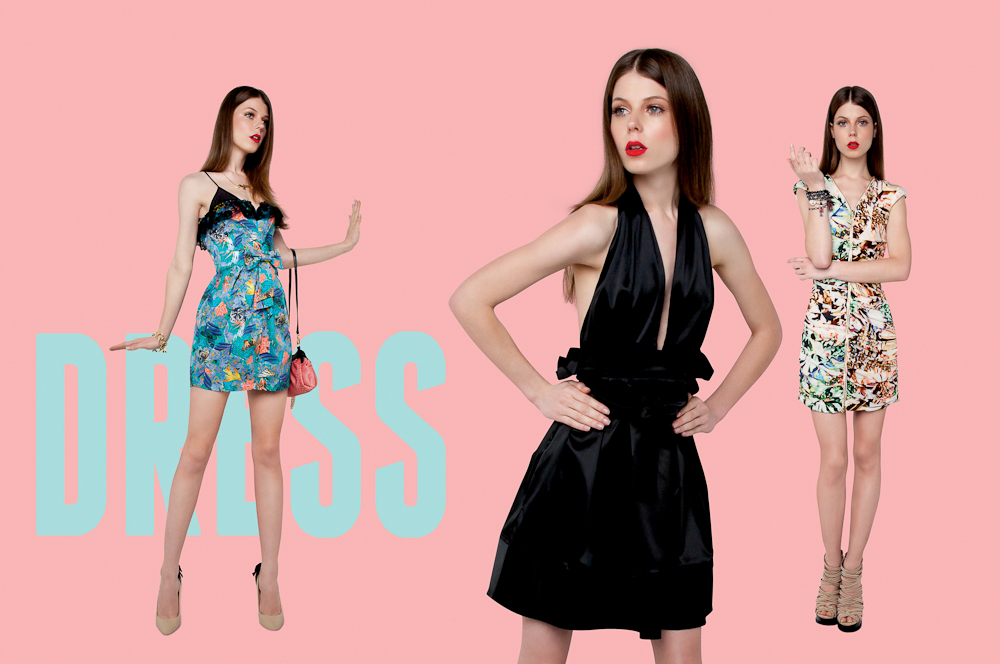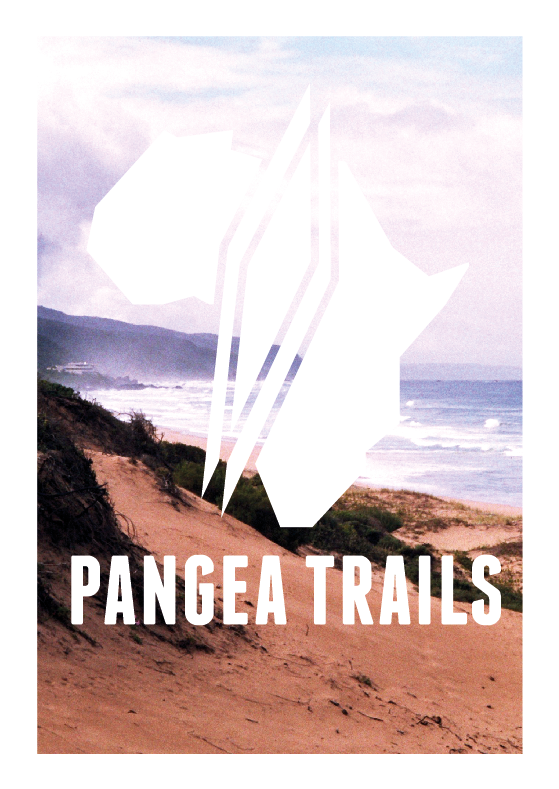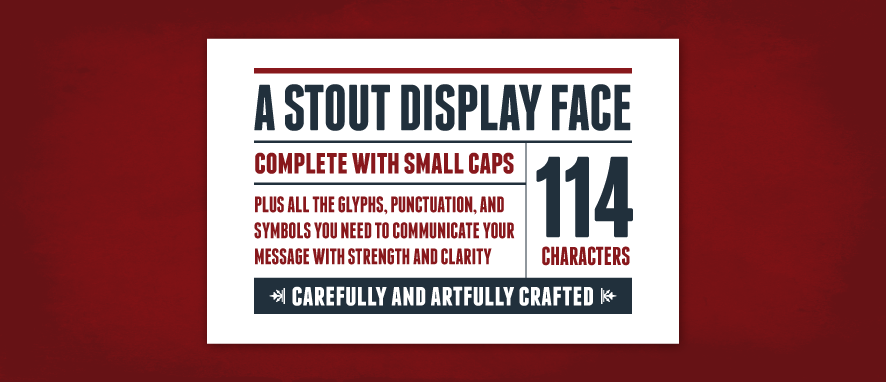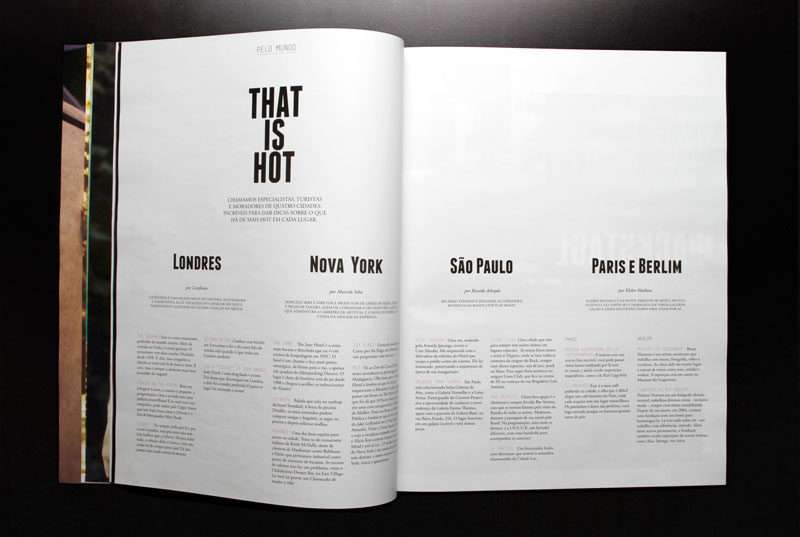
Franchise
A Stout Display Face
A powerful new display typeface meant to communicate your message quickly and with power. The characters were meticulously drawn to achieve a unifomity without compromising style.
Condensed Sans-Serif